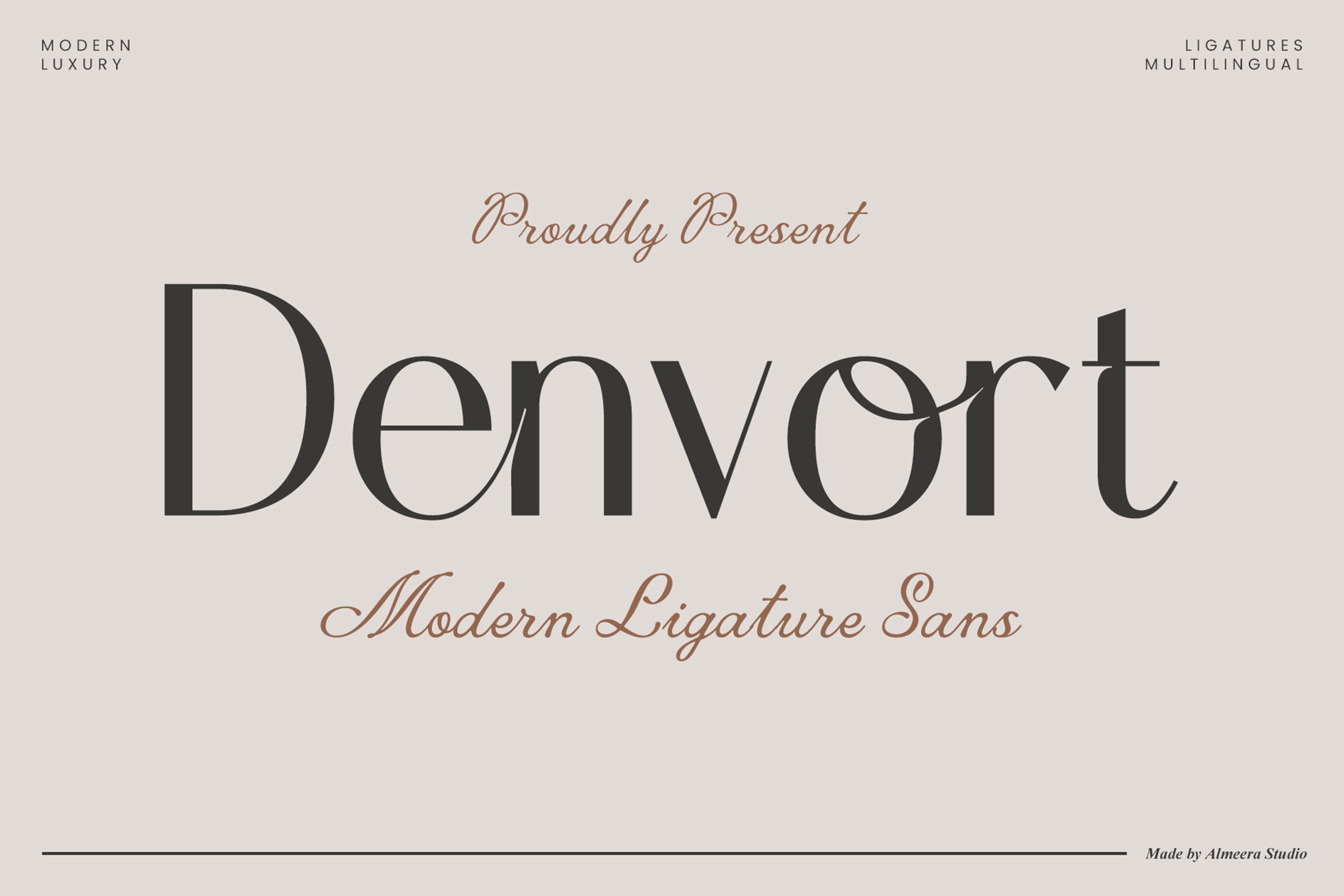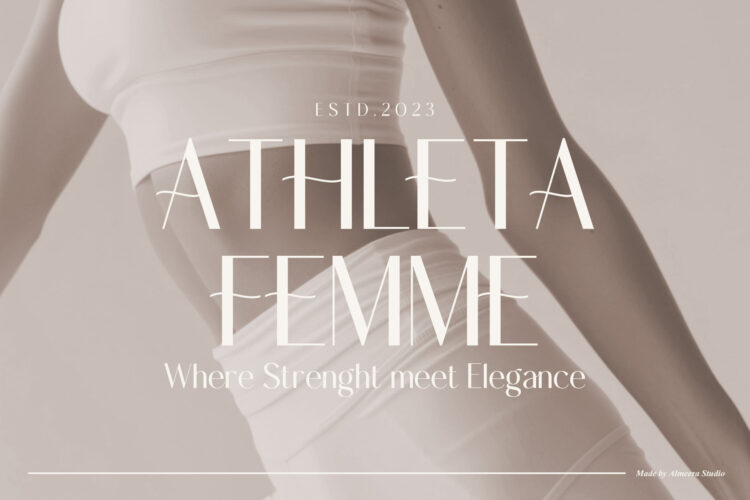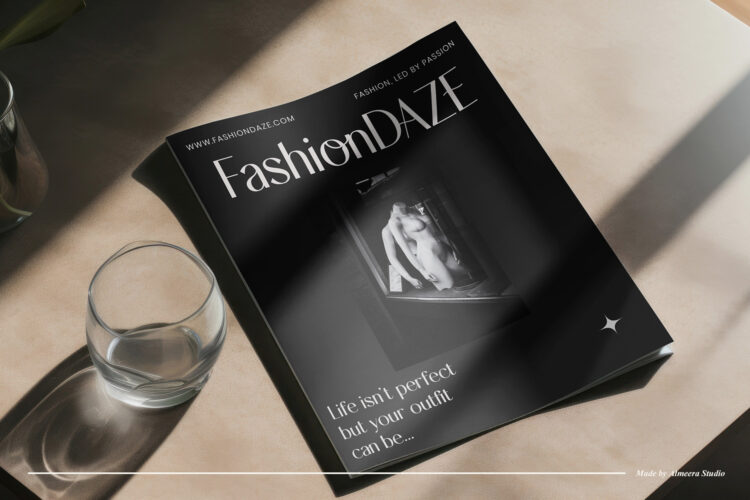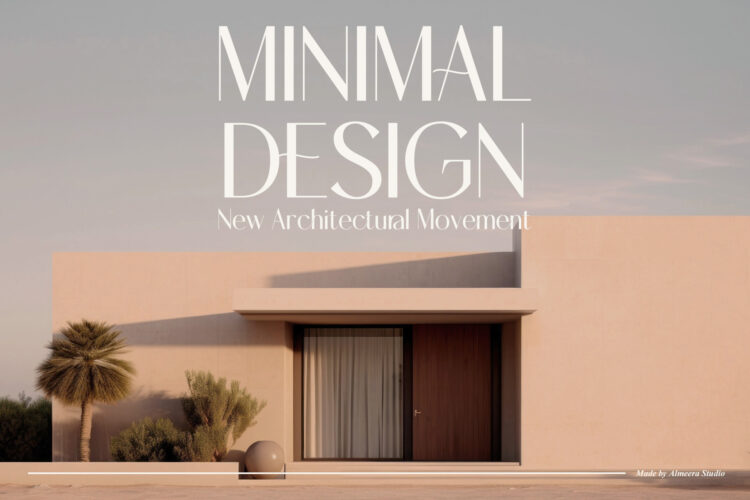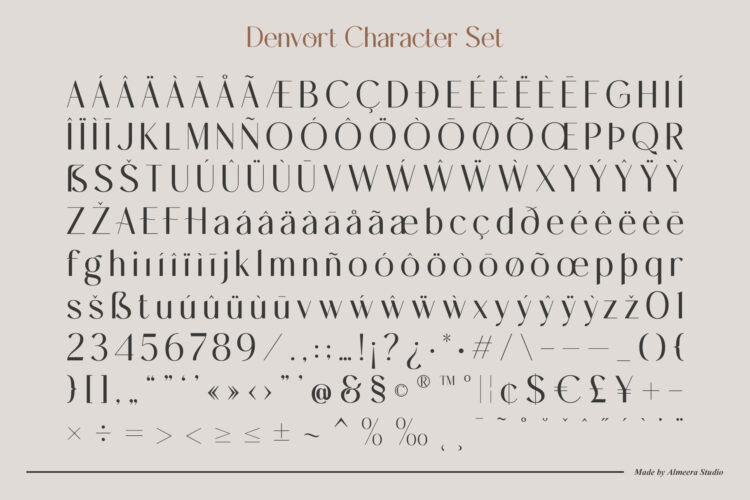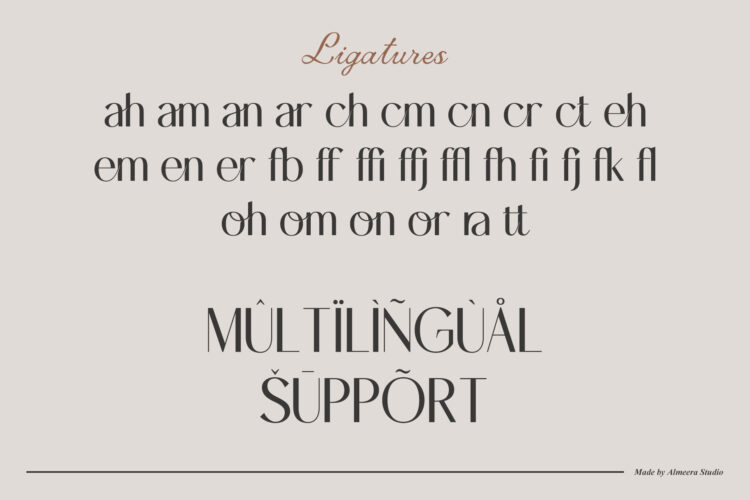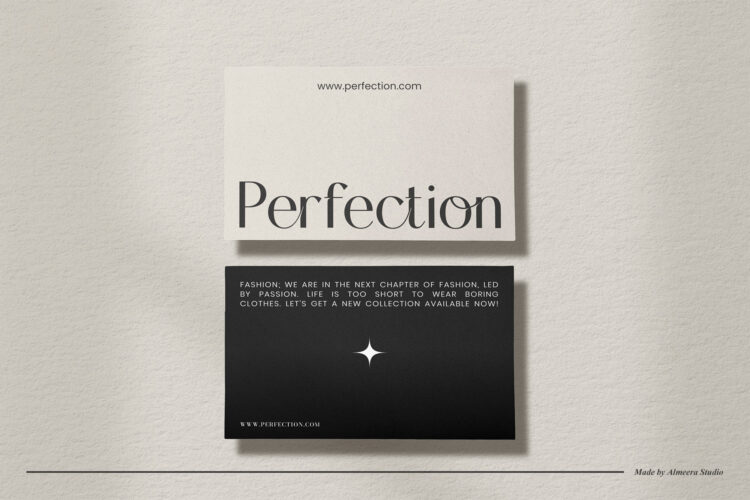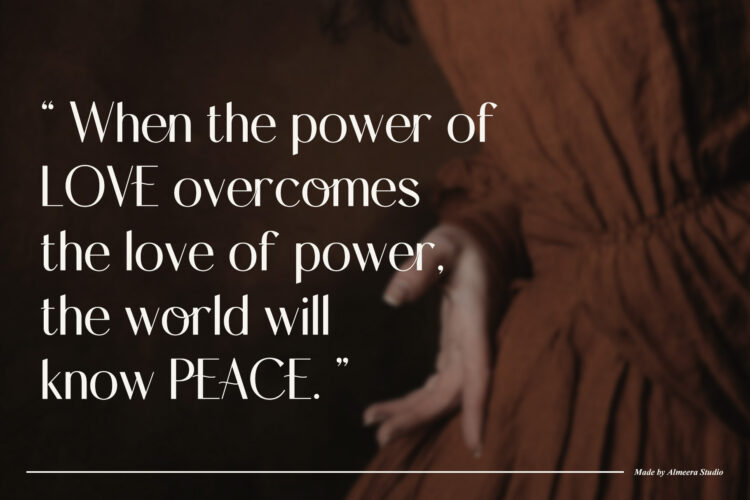
Denvort is a very elegant and classy font for all branding and logo designs. This type of serif font is created with elegance and luxury so it is perfect for all your design needs. This font is equipped with many beautiful and unique ligature and alternate options. This type of font is very suitable for your various needs such as branding projects, logos, social media posts, advertisements, labels, product packaging, photography, wedding designs, watermarks, invitation product designs, stationery, and any project.
– Ligatures
– Symbols
– Multilingual Support
Denvort | Ligature Sans